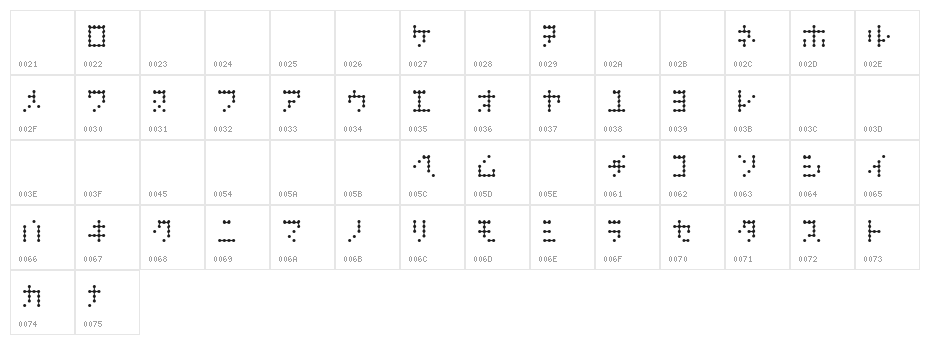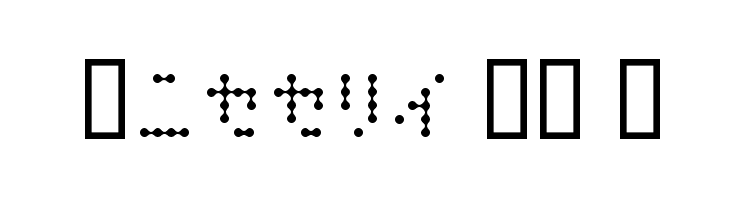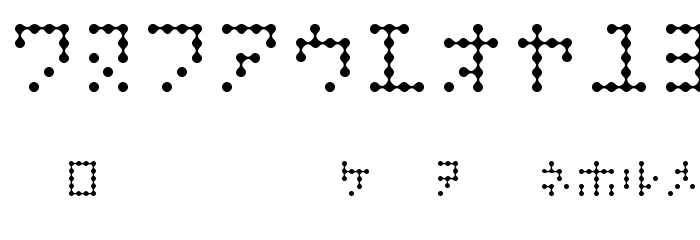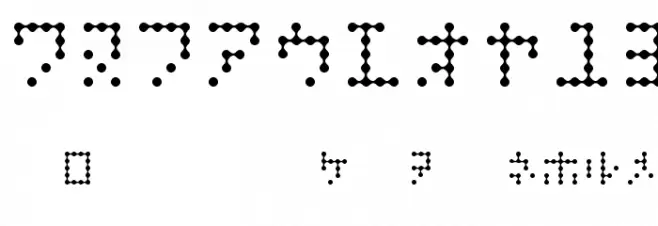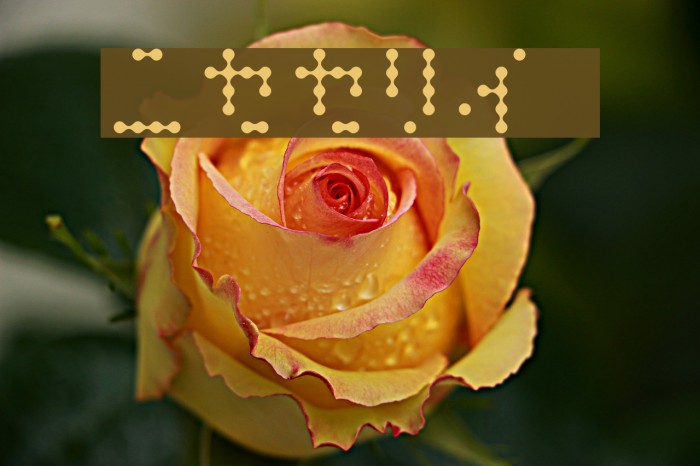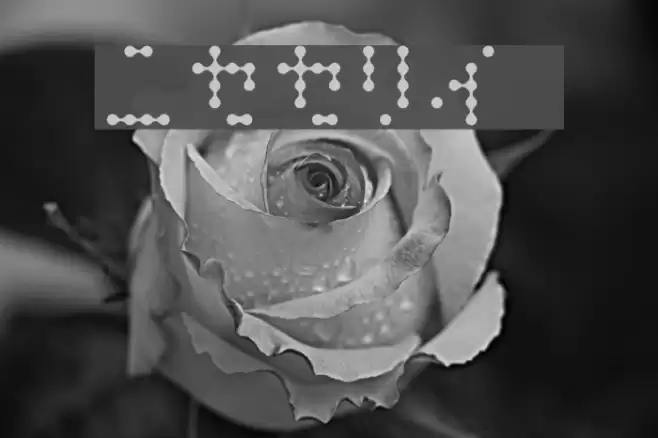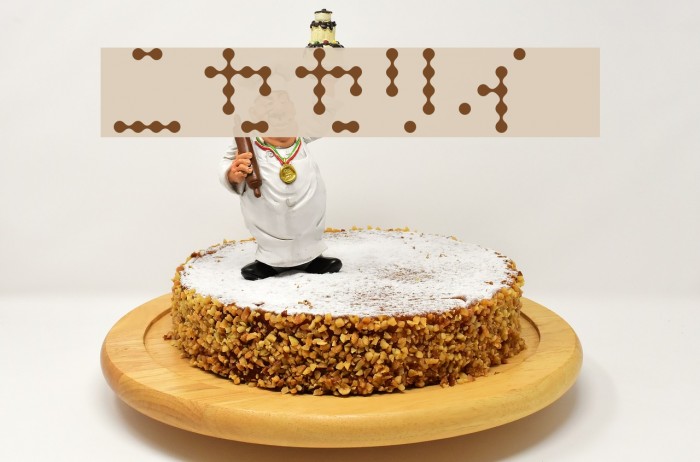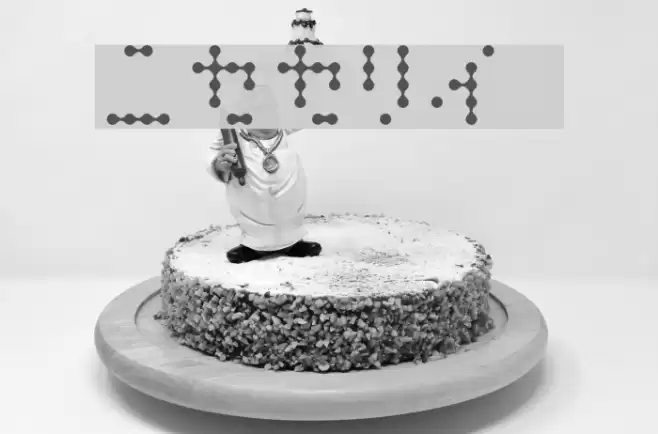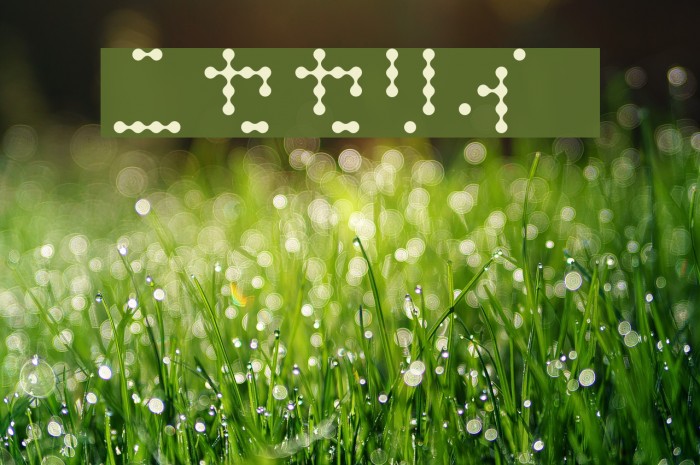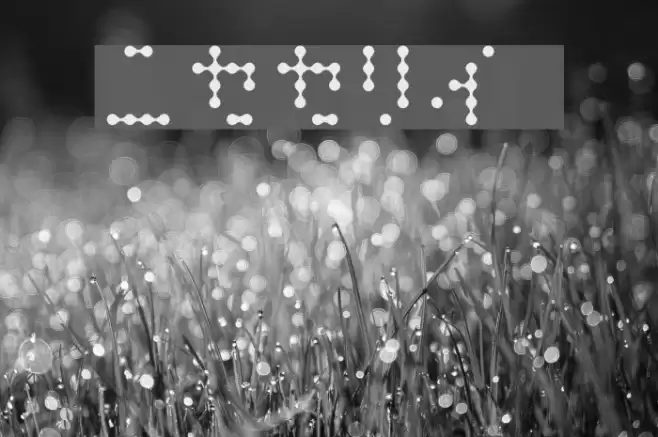
Dipple KK S Description
This font features a unique dotted design, where each character is composed of small, evenly spaced dots. The style is highly geometric and structured, giving it a modern and digital appearance. The characters are clearly defined, with consistent spacing and alignment, making them easily readable despite the unconventional design. This font is particularly eye-catching and would stand out in any design project. The use of dots creates a playful yet sophisticated look, suitable for creative and tech-oriented themes.